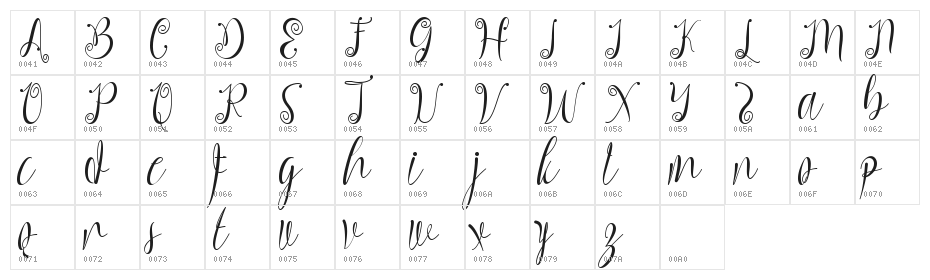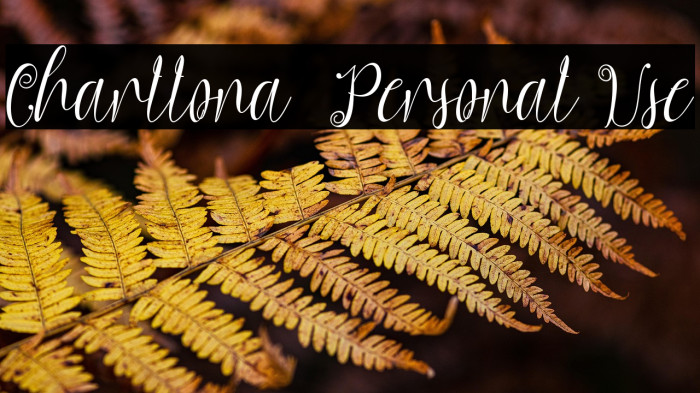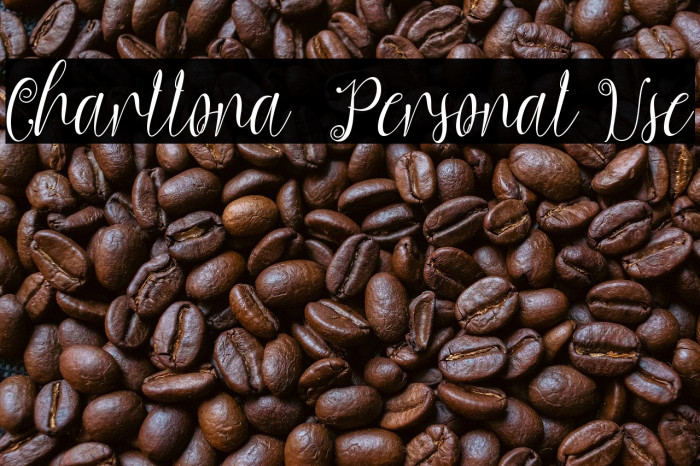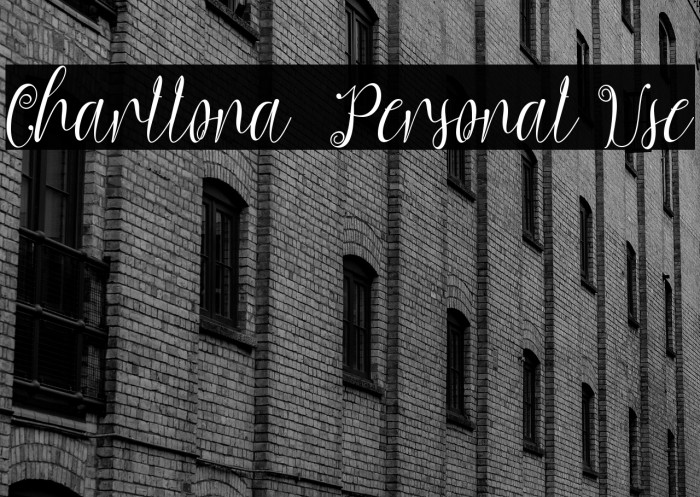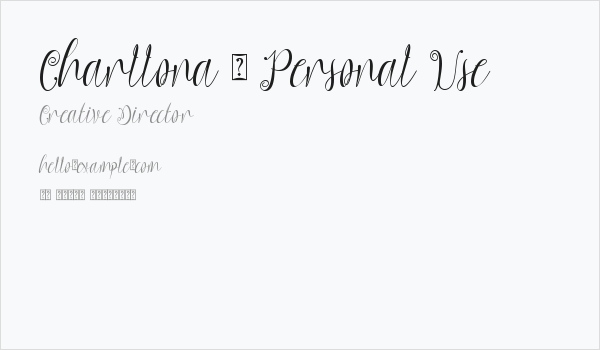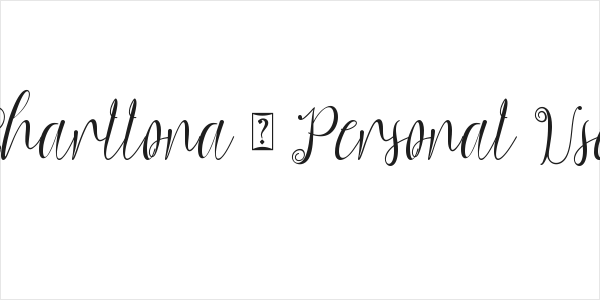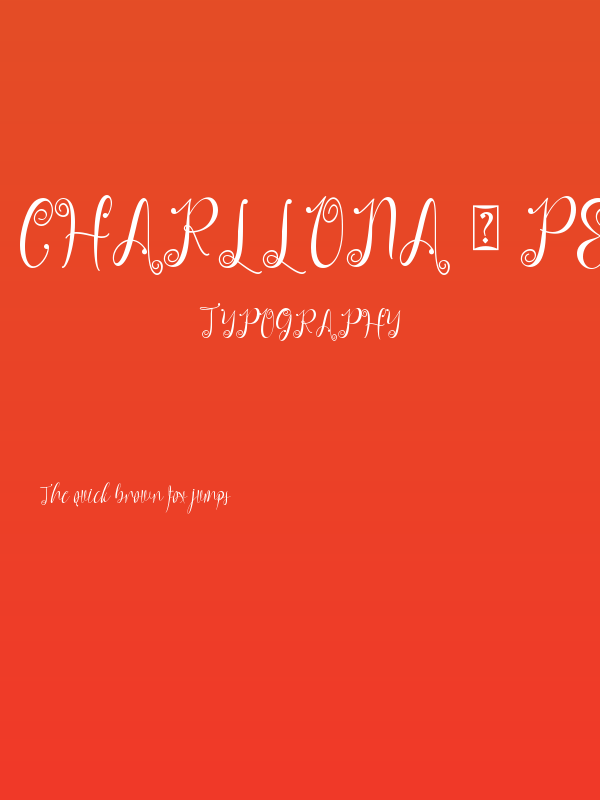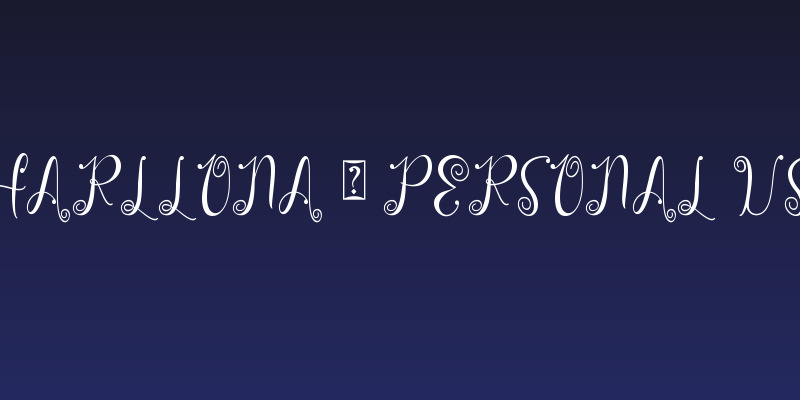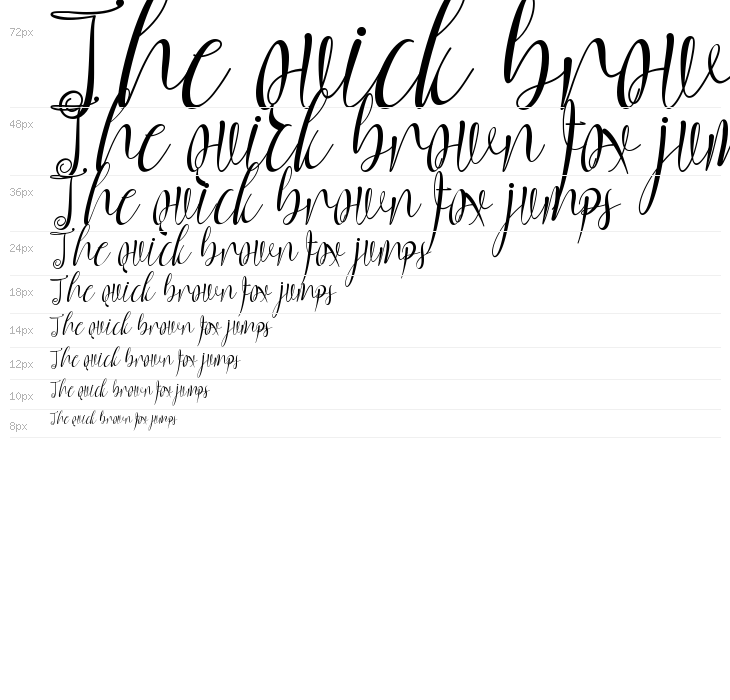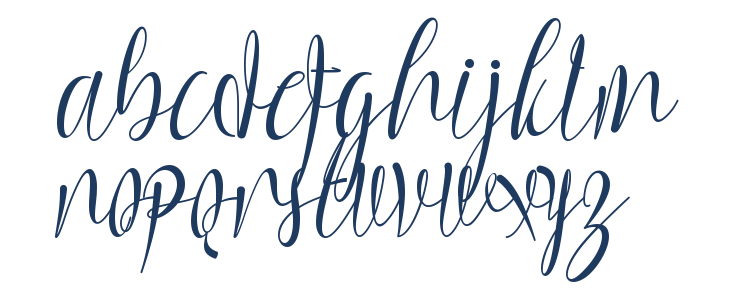
Charllona - Personal Use Font
Charllona - Personal Use Description
This font features an elegant and whimsical script style, characterized by its flowing, cursive letters with decorative swirls and loops. The uppercase letters are particularly ornate, with each character exhibiting unique embellishments that add a playful yet sophisticated touch. The lowercase letters maintain a consistent fluidity, enhancing readability while preserving the artistic flair. The numbers and special characters are designed to match the overall aesthetic, ensuring a cohesive look across all text. This font is ideal for projects that require a touch of elegance and creativity, such as invitations, greeting cards, or branding materials.